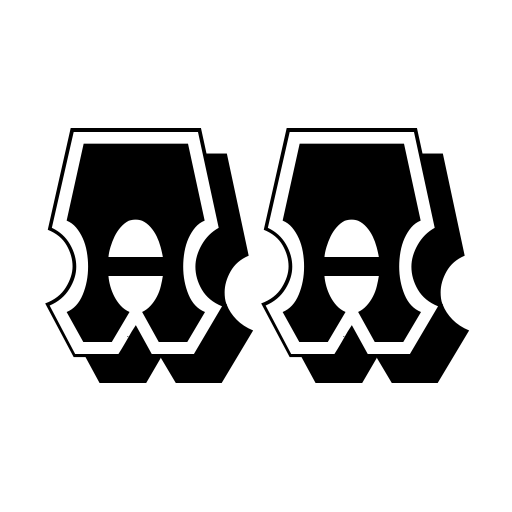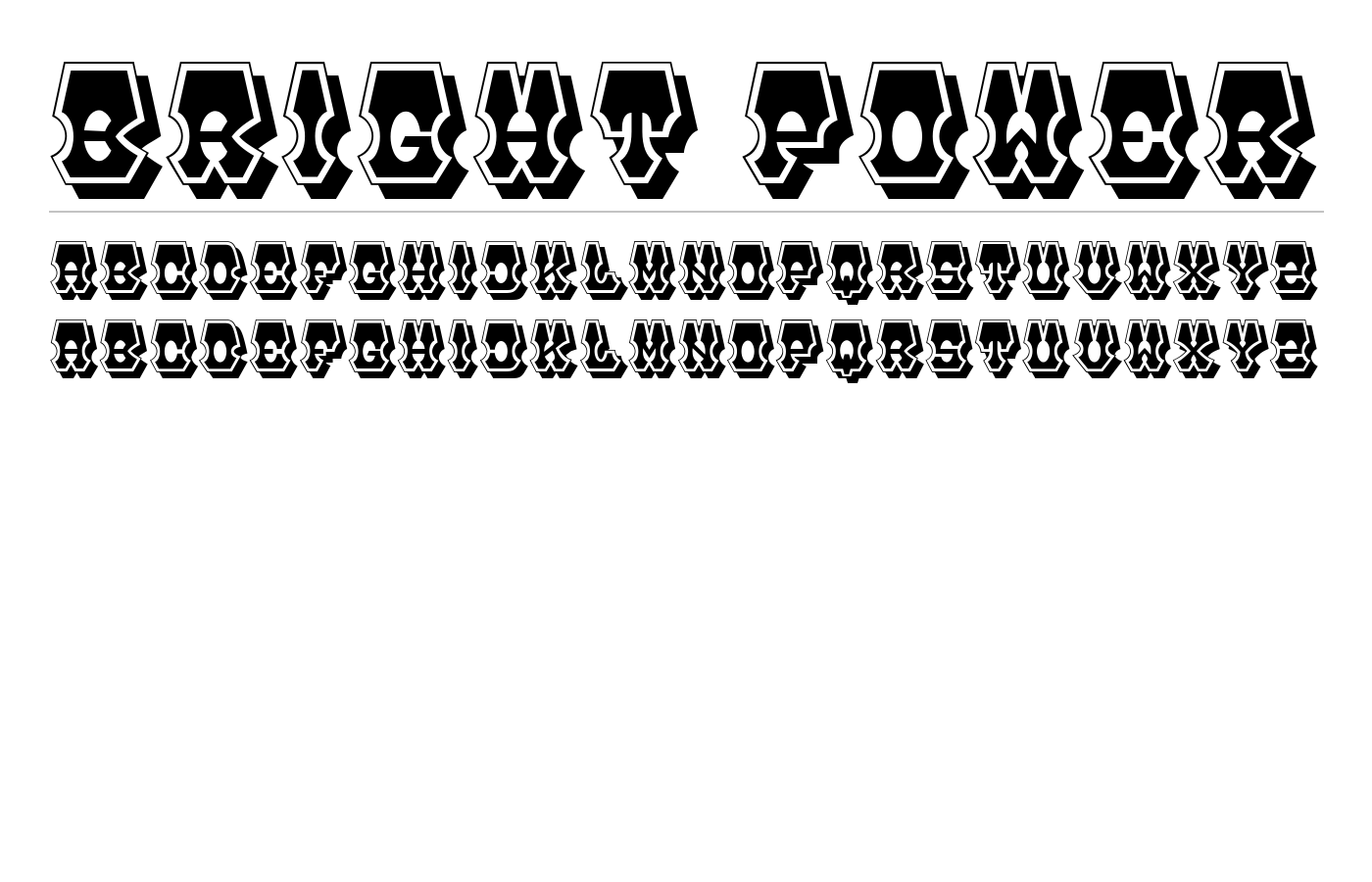
Bright Power Font is a bold, decorative display typeface with a strong, vintage-inspired look. Its heavy weight, intricate cut-out details, and three-dimensional shadow effect give it a dramatic and energetic personality, making it ideal for eye-catching headlines, logos, and packaging in retro or playful branding projects. This font stands out with its unique style, perfect for grabbing attention where a bold statement is needed.
Bright Power Font